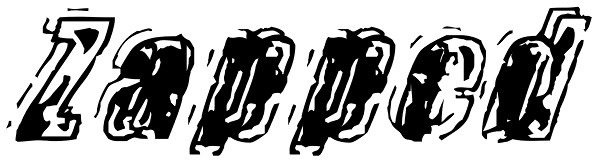
Zapped
Zapped is a grungy font with a sort of extruded look. I was working on a poster for the punk band MAXILLA (they are hot check'm out). It looks like it came out of a war zone. Abuse it!